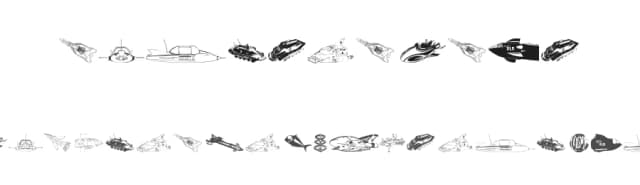
About Anderson Thunderbirds Are GO! Font
Anderson Thunderbirds Are GO! is a decorative font designed by Steve Ferrera. It includes 117 glyphs, a regular weight, TTF (TrueType) format, and 107 languages. Anderson Thunderbirds Are GO! is free to download; check the license details on this page before commercial use. Decorative fonts like Anderson Thunderbirds Are GO! work best for logos, posters, packaging, and standout headlines.
Anderson Thunderbirds Are GO! Font is a decorative font that shines as a display or heading face. Pair it with a clean sans-serif or serif font for body text β the contrast creates a clear hierarchy while the two styles stay balanced and easy to read.
Anderson Thunderbirds Are GO! Font
Anderson Thunderbirds Are GO! Font is a decorative typeface by Steve Ferrera, ideal for logos, invitations, branding, and creative projects.